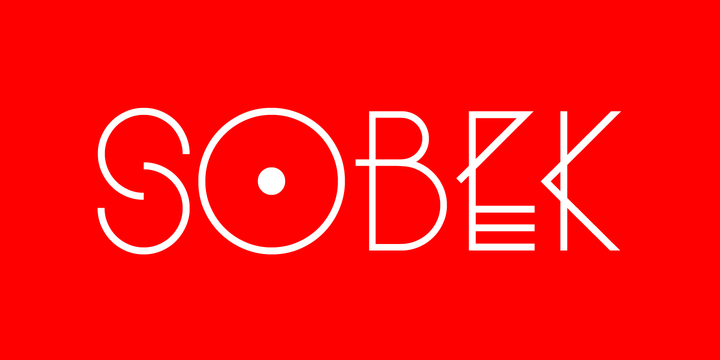
• Sobek
Sobek is a brand new experimental font release based on remixed sans serif letterforms. It’s the perfect font for all display graphic design work, headlines, and for making an impact.